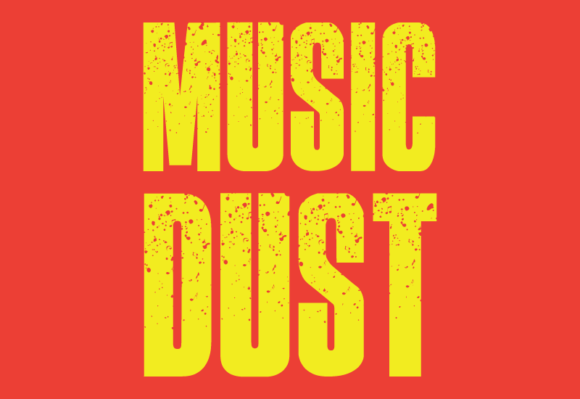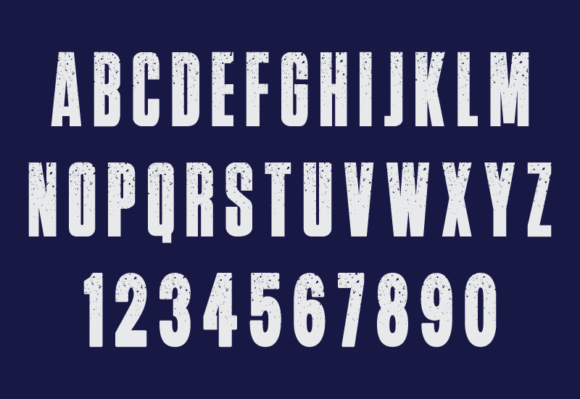
Introduction to Music Dust Font
Introducing Music Dust, an exquisitely honed grunge font.
The epitome of minimalist elegance, this font resonates with tranquility as refined and flawless as a soothing grunge melody, every stroke shaped with unparalleled precision This font has little music note grunge effects that enhance the beauty of your projects.